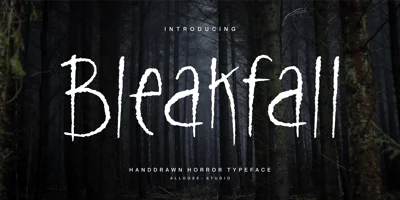
Bleakfall Font
Bleakfall Font is ideal for post-apocalyptic movie titles, dystopian novel covers, abandoned building photography credits, dark atmospheric gaming graphics, industrial metal band logos, underground film festivals, haunted attraction signage, urban decay art projects, survival horror game interfaces, and any somber project that explores themes of desolation, resilience, and the haunting beauty of forgotten places.
What makes Bleakfall Font exciting is its haunting ability to capture the melancholic beauty of abandoned landscapes and the profound silence of forgotten ruins. This typeface embodies the poetic desolation of empty places with weathered letterforms that seem carved by time, wind, and the slow erosion of memory itself. The font's atmospheric character makes it perfect for brands and projects that want to communicate depth, solitude, and the bittersweet beauty found in decay and abandonment.
The Bleakfall Font family includes multiple weights and distressed variations, featuring light, regular, and bold versions along with heavily weathered styles and alternate characters that simulate natural deterioration. This comprehensive collection allows designers to create authentically atmospheric typography that maintains the font's signature desolate character while providing flexibility for various dark and contemplative design applications.
When exploring atmospheric dystopian typography, Bleakfall Font represents an exceptional opportunity to work with a typeface that genuinely captures the spirit of urban decay and post-industrial melancholy. This font demonstrates innovative design thinking by embracing the aesthetic beauty of deterioration and abandonment, creating letterforms that feel genuinely aged by time and circumstance rather than artificially distressed.
Professional designers appreciate Bleakfall Font for its ability to instantly establish mood and atmospheric depth in projects exploring themes of isolation and environmental decay. The font's haunting character makes it particularly effective for entertainment properties, art installations, and cultural projects seeking to create emotional connections with audiences drawn to contemplative and introspective experiences.
The contemporary appeal of Bleakfall Font lies in its perfect representation of modern urban anxiety and environmental concern that resonates with audiences grappling with societal and ecological challenges. This typeface serves as a visual meditation on impermanence and resilience, making it an excellent choice for projects exploring the complex relationship between human civilization and natural forces.
For creative professionals working with atmospheric and contemplative projects, Bleakfall Font represents the ultimate typography solution that brings authentic melancholic beauty and environmental awareness to any application, ensuring designs reflect the profound silence and haunting elegance that define our relationship with forgotten and abandoned spaces.